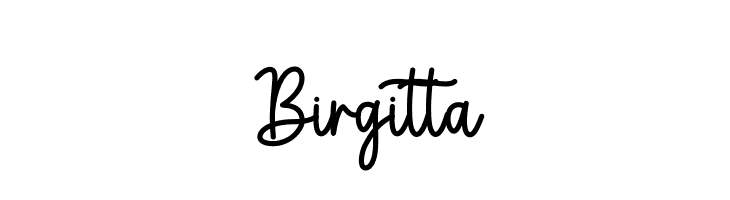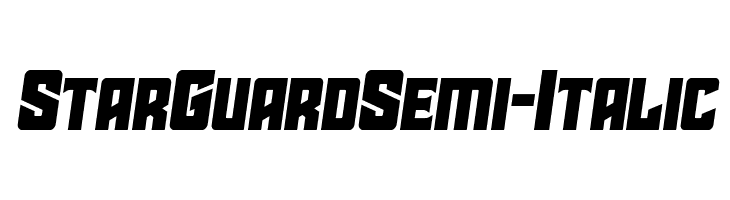
A charming and fluid script font with elegant, flowing letterforms.
A bold, 3D italic font with a modern and dynamic style.
A decorative Morse code-inspired font with dots and dashes.
A sleek, modern italic font with clean lines and balanced readability.
An ornate and decorative font with elaborate swirls and embellishments.
A bold, italic, and angular font with a futuristic and dynamic style.
A graceful and elegant script font with flowing, connected strokes.
A dynamic, expressive handwritten font with fluid, flowing letterforms.
设计师偏爱 BRUSHY Swash, Berthalia Script, Christmas Box, Covert Ops 3D Italic and RadiosinMotionHard-Regular,因为其造型干净、适用范围广—— 从品牌识别到落地页、海报都能胜任。